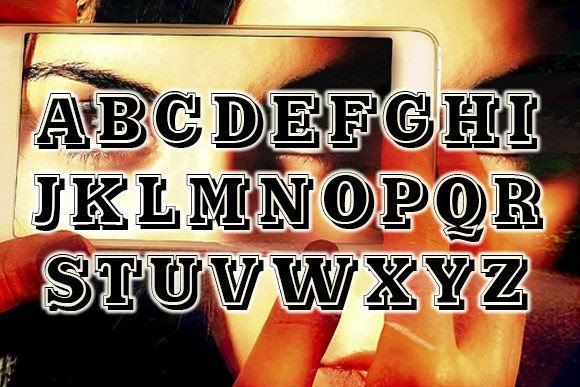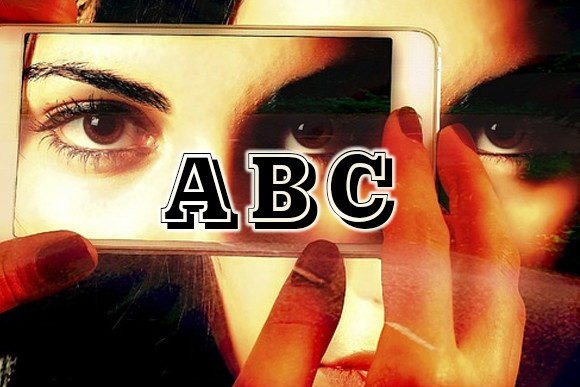
Introduction to Malizia Font
As a designer, you know the thrill of finding that perfect font to elevate your creative project. You’ve spent hours scouring design resources, searching for that one special font that will make your design stand out from the crowd. And then, it happens – you stumble upon the Malizia Font, a cool shadowed display typeface that’s sure to captivate your audience.
With its sleek, high-quality design and transparent background, the Malizia Font is a versatile design resource that’s perfect for any project. Whether you’re creating a bold banner or a striking headline, this font is sure to make a statement. And the best part? It’s available for free download, making it an accessible and valuable resource for designers of all levels.
Key Features of Malizia Font
- Malizia Font features a unique, hand-drawn design that adds a touch of personality to any creative project.
Honest Review: Malizia Font
As a designer, I’ve had my fair share of working with various fonts for different creative projects. Recently, I stumbled upon the Malizia Font, and I must say it’s a great addition to any design resource library.
Here’s what works well about the Malizia Font ✨:
- High-quality design: The font is well-crafted, with smooth lines and a professional feel.
- Transparent background: This allows for seamless integration with any background or design element.
However, there are some limitations to consider ⚠️:
- Limited font sizes: While the font is great at certain sizes, it may not be as effective at larger or smaller sizes.
- No bold or italic options: This may limit its use in certain design scenarios.
Overall, I’m impressed with the Malizia Font and would definitely recommend it to fellow designers. It’s a solid choice for any creative project, and its free download makes it a great resource to have in your arsenal.
Malizia Font
The Malizia Font is a high-quality design resource ideal for creative projects. With its transparent background, it offers a clean and versatile look that can be used in various applications.
To get the most out of the Malizia Font, keep the following tips in mind:
- Experiment with different font sizes and styles to achieve the desired look.
- Combine the Malizia Font with other design elements to create a visually appealing design.
- Use the font in conjunction with a high-quality image or graphic to enhance the overall design.
The Malizia Font is suitable for a variety of design projects, including: